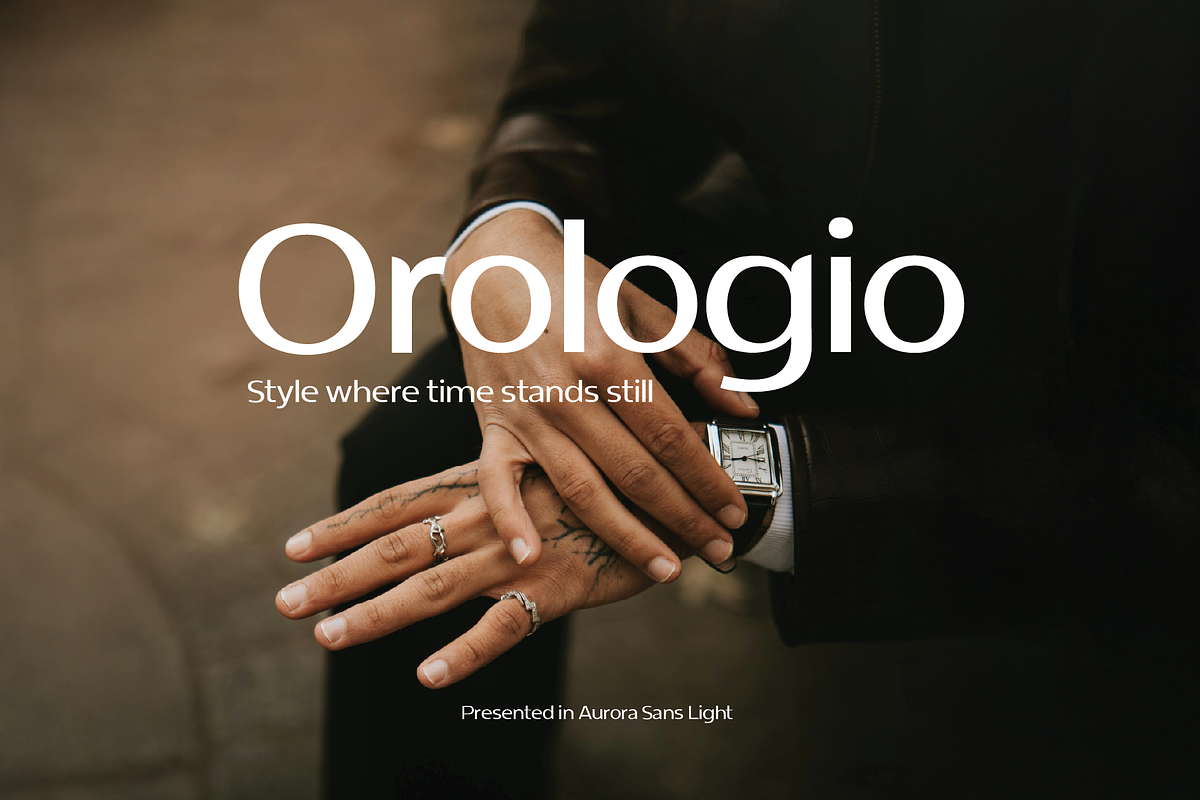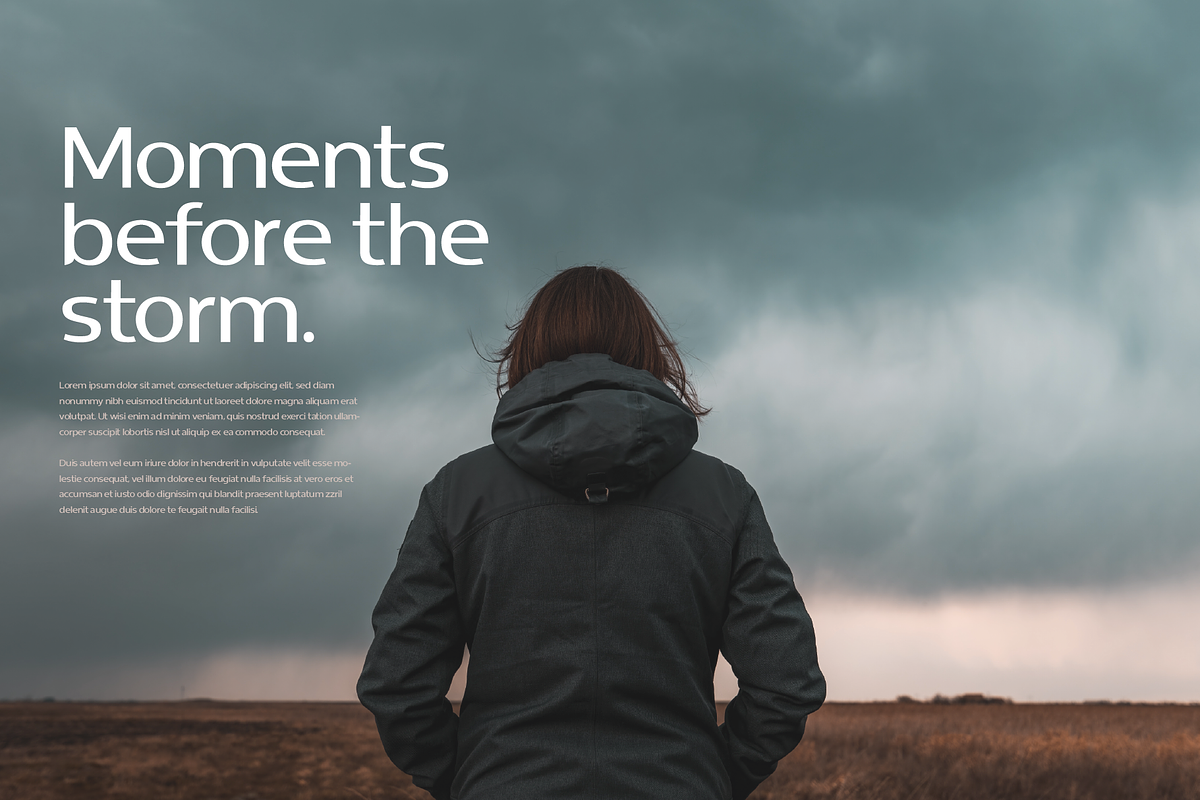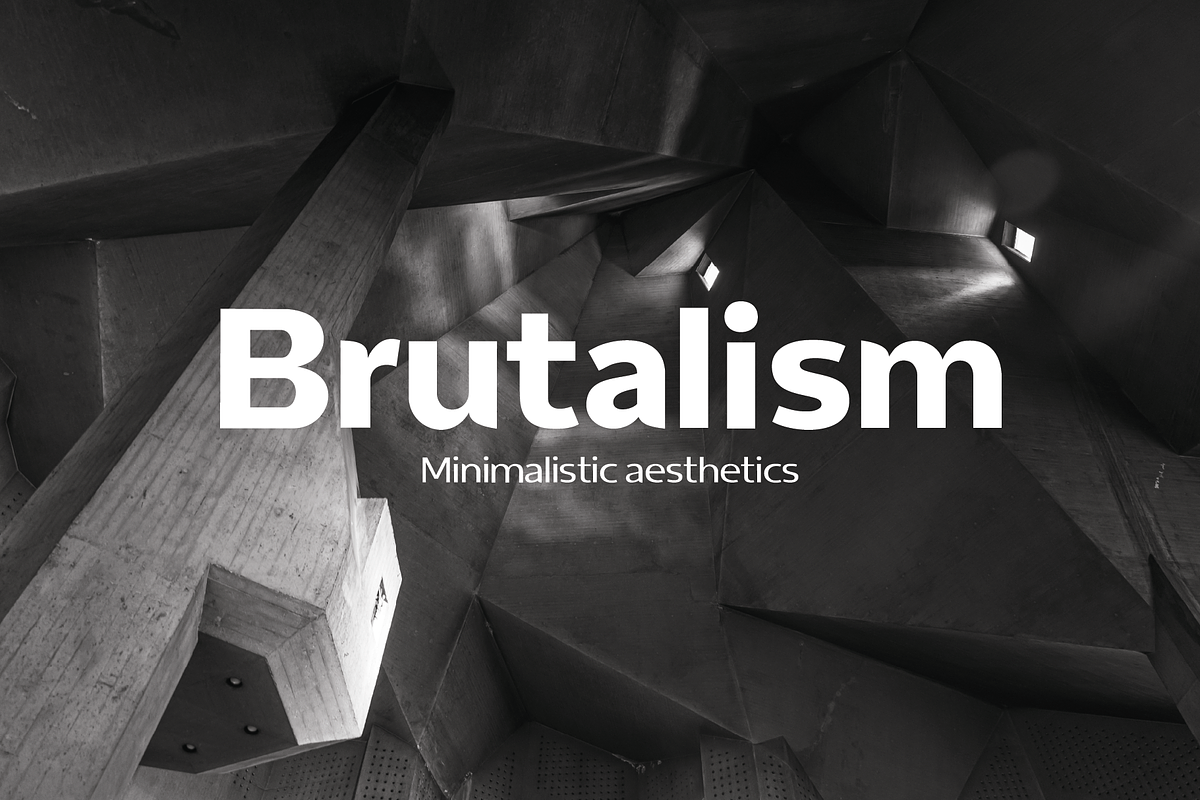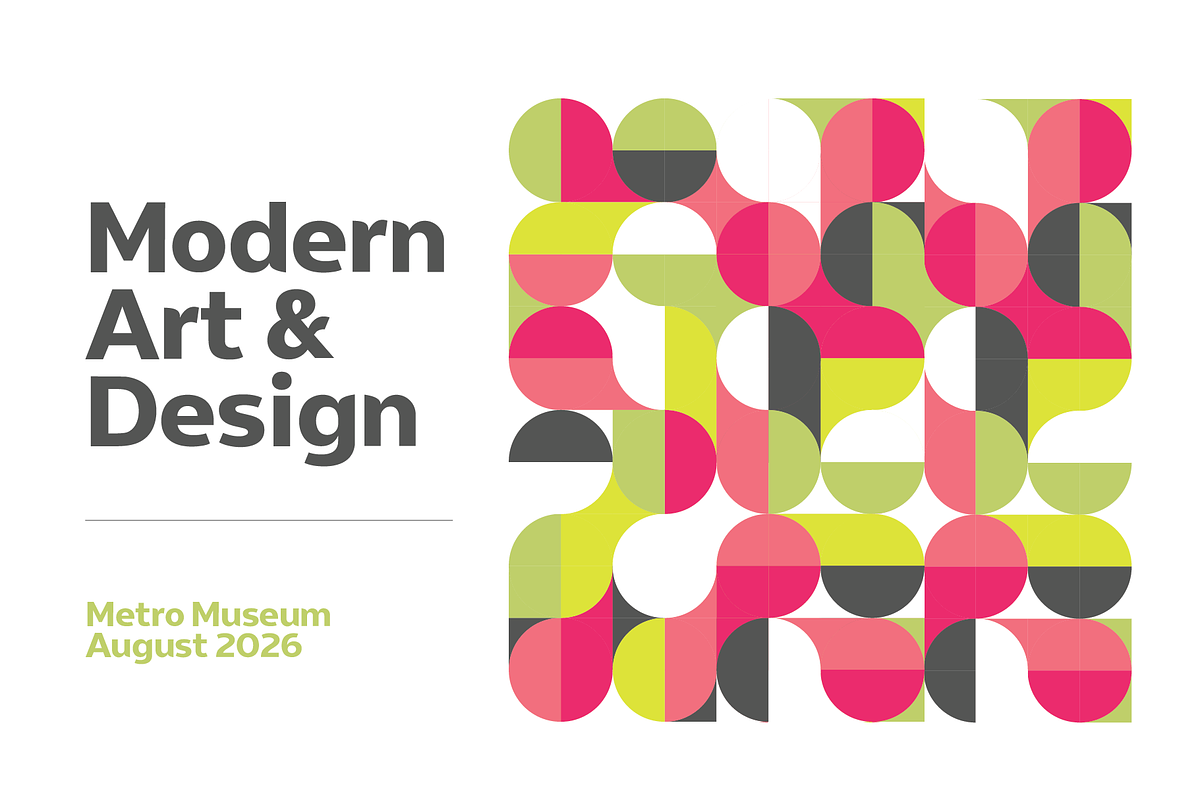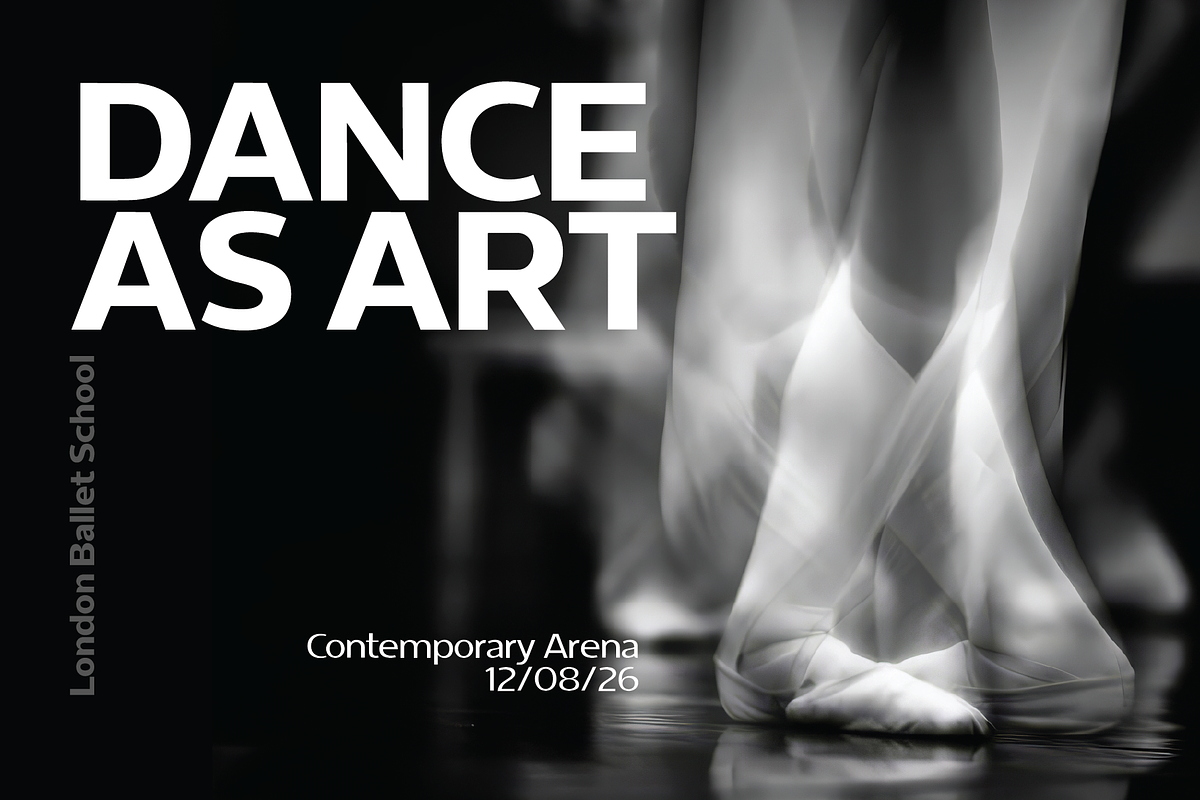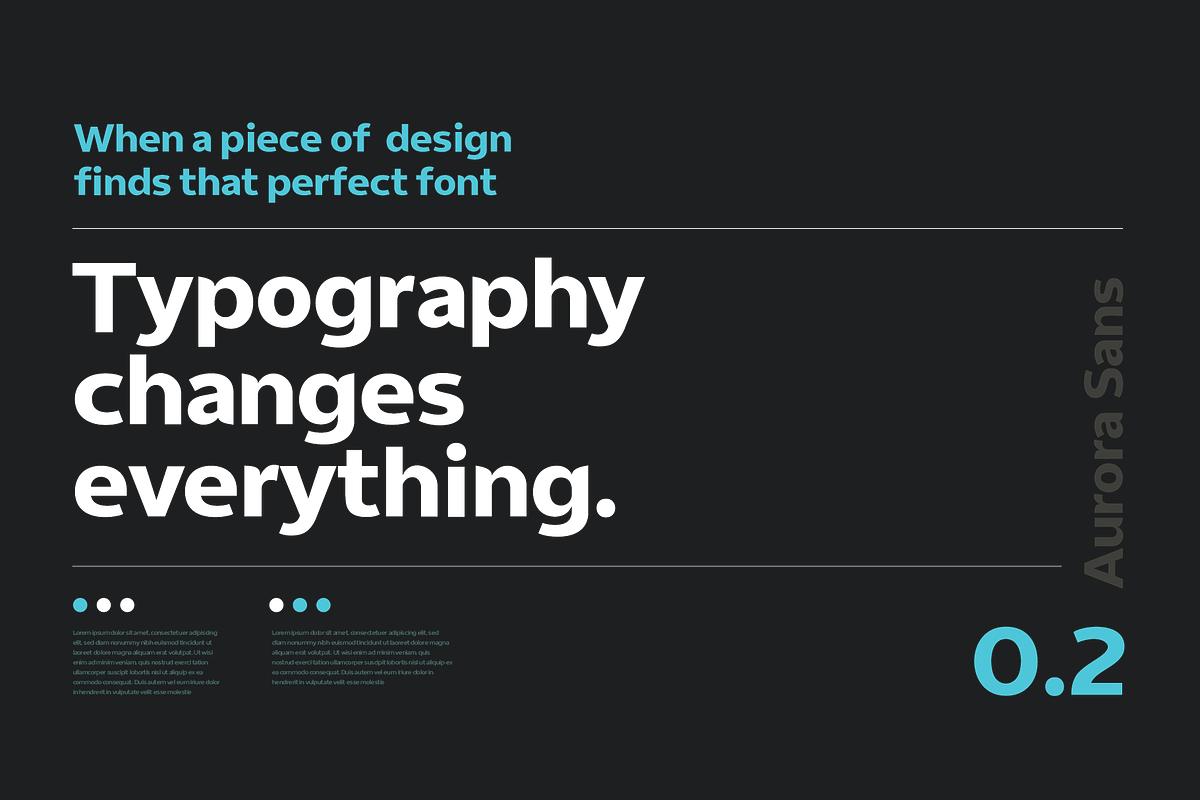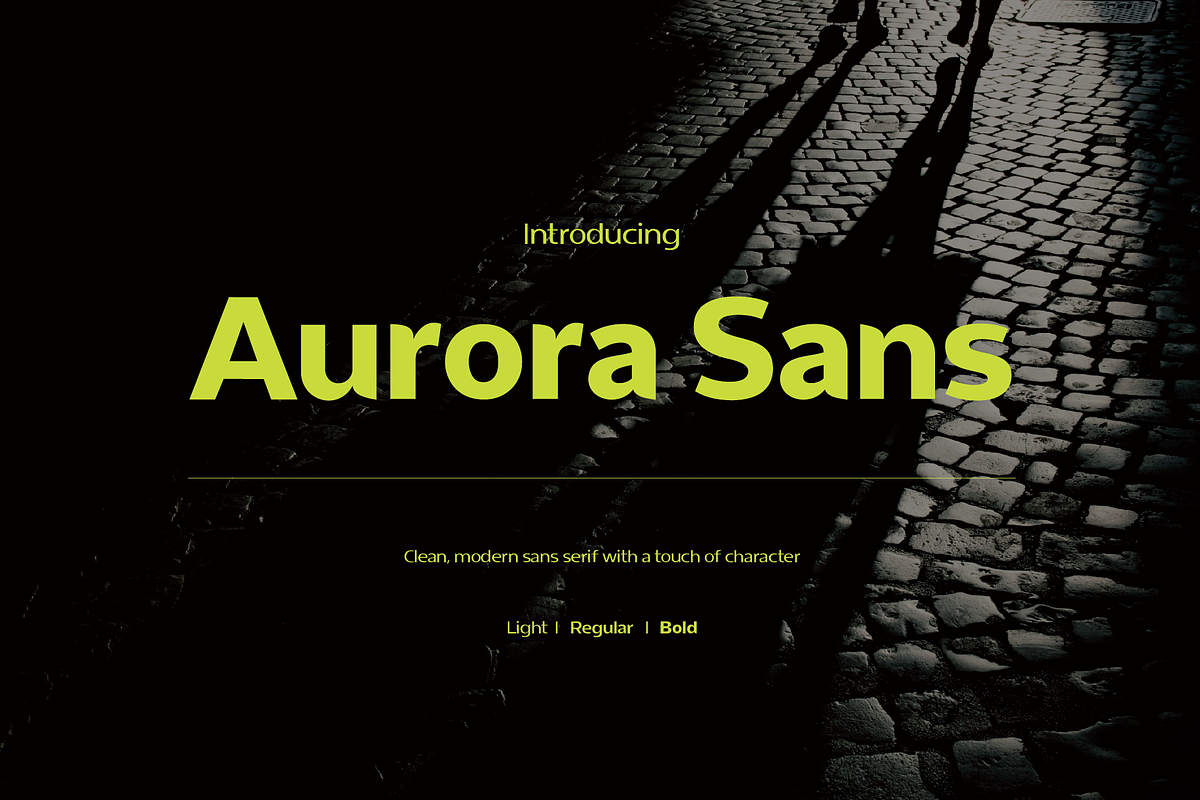
Aurora Sans
A modern, clean, confident Sans Serif font with a subtle character. Three weights Bold, Regular and Light. A perfect display font for campaign work but also with optimum legibility for design and print. A font with strong, crisp and classic letterforms with well placed curves for a unique personality. This is a font perfect for designers that want to communicate with clarity but also make a statement.